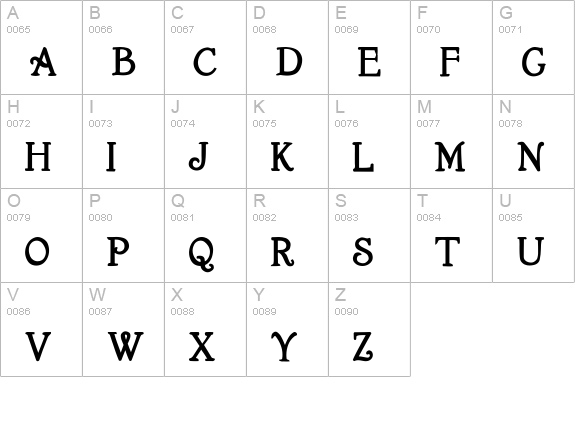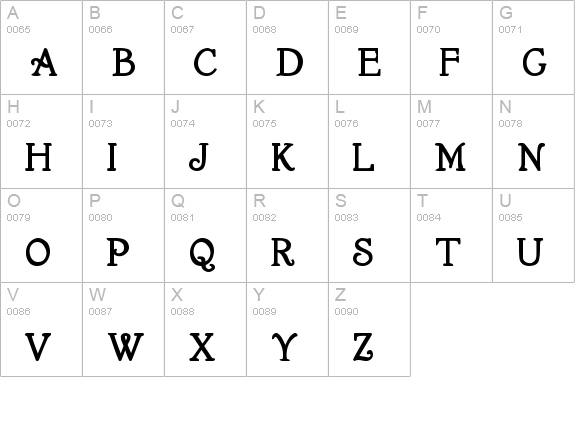
Garton-Fat Font Details
Introducing Garton-Fat font - a bold and eye-catching typeface that demands attention with its strong presence and striking design. The Garton-Fat font exudes confidence and modernity, making it ideal for headlines, posters, branding, and any project that requires a touch of boldness. What sets Garton-Fat font apart is its seamless blend of elegance and power, creating a visual impact that resonates with the viewer. The thick, rounded characters of this font make a statement while maintaining readability and versatility. The best part is that Garton-Fat font is available for free! You can easily download this stunning typeface at FontsMarket.com and elevate your design projects with its unique charm and style. Don't miss out on the opportunity to add Garton-Fat font to your font collection and make a bold statement in your next design endeavor.